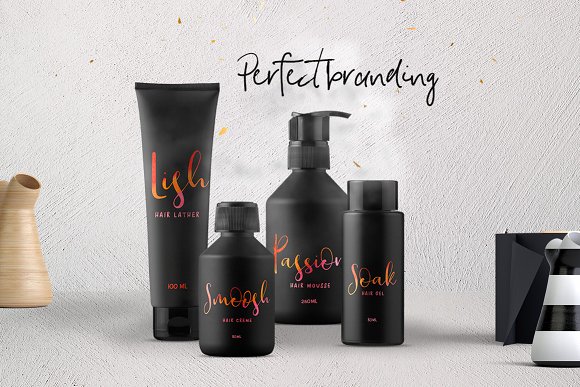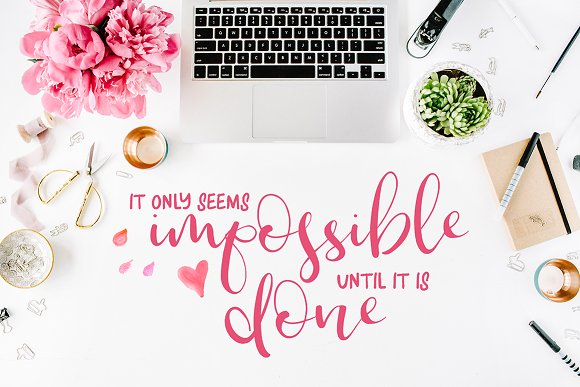
Introduction to Saltie Sea Font
As a designer, have you ever found yourself stuck on a creative project, struggling to find the perfect font to bring your vision to life? You’ve spent hours browsing through design resources, searching for that one elusive font that will elevate your work from good to great. For many designers, this is a familiar frustration.
Enter the Saltie Sea Font, a beautiful handcrafted font created by the talented team at Creativeqube. With its stunning, high-quality design and transparent background, this font is a game-changer for designers looking to add a touch of elegance to their work. Whether you’re working on a personal project or a client-based design, the Saltie Sea Font is a valuable resource that’s sure to inspire your creativity.
But what sets the Saltie Sea Font apart from other free downloads? Its unique, handcrafted design makes it a standout among other fonts, offering a level of sophistication and style that’s hard to find elsewhere.
Key Features of Saltie Sea Font
- High-quality, unique font design perfect for creative projects, including invitations, posters, and more.
- Transparent background, allowing for seamless layering and customization in your design project.
- Available in multiple sizes and resolutions, including 300 DPI, to ensure crisp and clear display on various mediums.
- Unique, hand-drawn style with a touch of whimsy, making it an excellent design resource for those looking for a creative twist.
- Perfect for designers and artists working on a variety of projects, from children’s books to advertising campaigns.
Honest Review: Saltie Sea Font
I recently stumbled upon the Saltie Sea Font while searching for a free download for a creative project. I was excited to see if it would live up to its promise of high-quality typography. The Saltie Sea Font has a unique, hand-drawn feel that I found really charming. The designer has done a great job of creating a font that’s both elegant and playful.
What works well: ✨ The font comes in a variety of weights and styles, making it perfect for designers who want to add some visual interest to their projects. The transparent background is also a great touch, allowing users to easily layer the font over images or other design elements.
- Multiple weights and styles available
- Transparent background for easy layering
- High-quality typography
However, I did notice a few limitations: ⚠️ The font could benefit from a more comprehensive character set, as some characters were missing from the free download. Additionally, the font’s uniqueness may not be for everyone – some designers may find it too quirky or unconventional.
Overall, I’m impressed with the Saltie Sea Font as a design resource. While it may not be perfect, it’s a great option for designers looking for a unique, high-quality font for their creative projects. I would definitely recommend it to anyone looking for a free download with some real character.
The Saltie Sea Font is a free download that can be used as a design resource for any creative project. This high-quality font features a unique, hand-drawn design that is perfect for adding a touch of personality to your work.
For the most out of the Saltie Sea Font, be sure to use it on a transparent background to really make the font stand out. You can also experiment with different font sizes and colors to create a unique look.
The Saltie Sea Font is perfect for a variety of creative projects, including social media graphics, blog posts, and product designs. It’s also a great choice for anyone looking to add a touch of whimsy and personality to their work.
Is the Saltie Sea Font suitable for high-quality printing?
Yes, the Saltie Sea Font is designed to be high-quality and suitable for printing. With its crisp lines and smooth curves, the font ensures that your designs will look great in print. Whether you’re designing business cards, posters, or brochures, the Saltie Sea Font is an excellent choice.